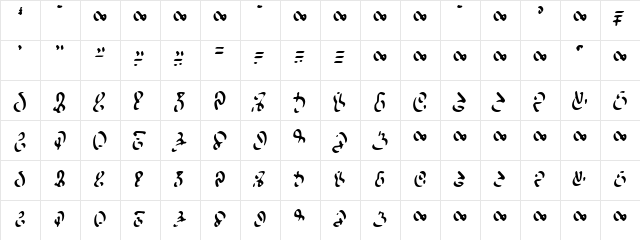
WizardSpeak Worn Regular
Design Context for WizardSpeak Worn Typeface
WizardSpeak Worn trades polish for personality, using distressed and eroded forms to bring grit and attitude to creative work.
A strong fit for alternative music projects, graffiti-adjacent design, and anything that deliberately resists polish.
Pro Tip: Use WizardSpeak Worn at larger sizes where the texture and irregularity of each letterform can be clearly seen — it loses its character at small sizes.